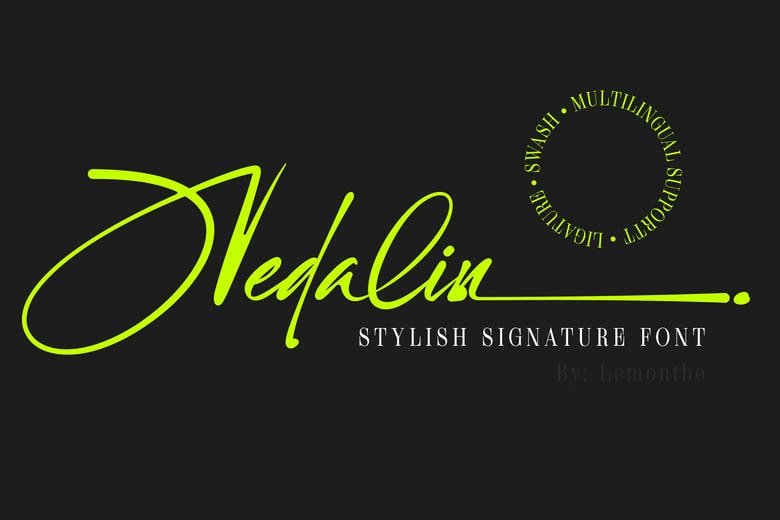
Nedalin Font
Nedalin is a signature-style font with a modern look of handwritten type with a bold, expressive and natural character. Each stroke has a free-flowing nature like a real signature and creates an organic and stylish feel.
Nedalin is great for logos, branding, packaging, headlines, social media, and numerous creative projects that require an elegant, yet casual element. With swash and ligature features included, this font allows designers to have flexibility to create strong, unique and elegant visual identities.
Nedalin Handwritten Script Font